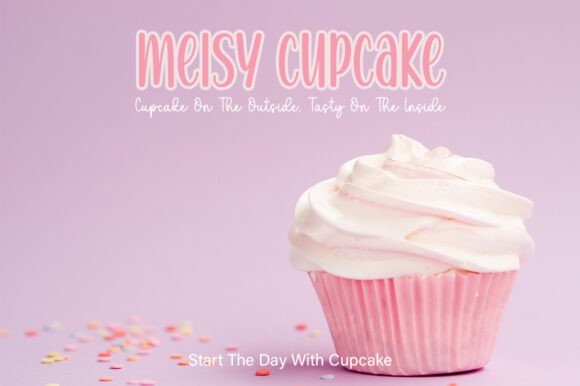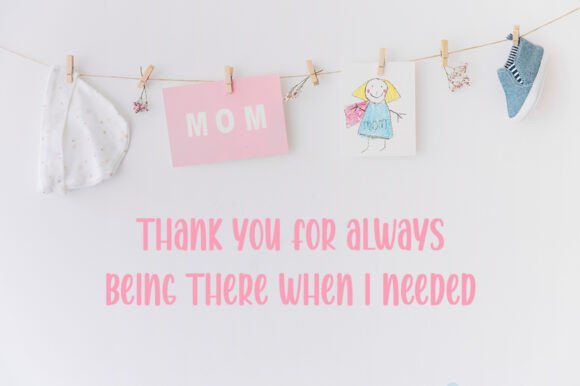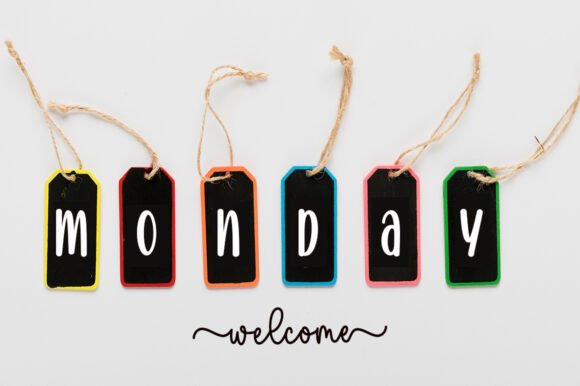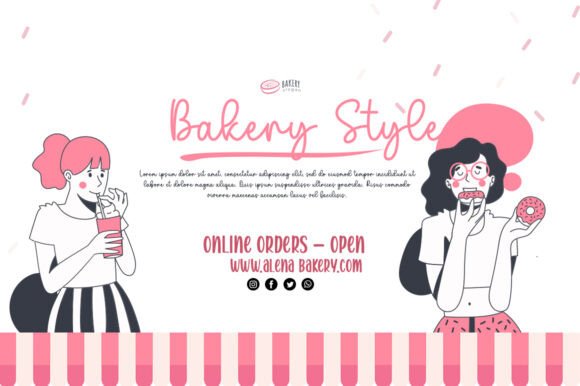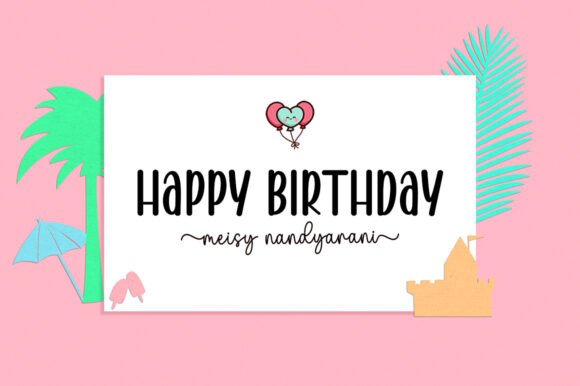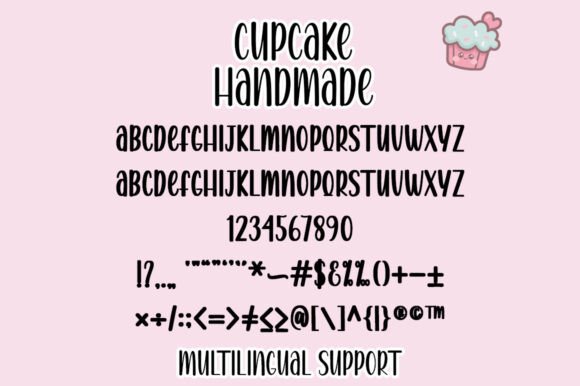
Have you ever found yourself stuck in a creative rut, searching for that perfect font to bring your vision to life? It’s a feeling many designers know all too well. One moment, you’re pouring over font collections, and the next, you’ve stumbled upon the perfect match. For us, that moment came when we discovered the Cupcake Handmade Duo Font.
This stylish duo font, consisting of a delicate sans serif and a romantic script, is the perfect addition to any design project. Whether you’re crafting a heartfelt greeting card or designing a stunning headline, Cupcake Handmade Duo Font adds a touch of elegance and whimsy that’s sure to captivate your audience. With its PUA encoding, accessing all the glyphs and ligatures is a breeze, making it a valuable asset for designers looking to elevate their work.
Cupcake Handmade Duo Font Key Features
- Font Size: Available in 4 different font sizes: Regular, Large, Extra Large, and Outline
- Unique Characteristics: This handmade duo font features a playful and whimsical design, perfect for baking-related businesses, food blogs, and social media platforms.
- Script and Font Options: Includes both a script and a font version, allowing for versatility in design and layout.
- Characters and Glyphs: Includes a wide range of characters, including uppercase and lowercase letters, numbers, and special characters.
Cupcake Handmade Duo Font Review
Overall, I’m quite impressed with the Cupcake Handmade Duo Font. It’s a beautiful, hand-drawn font that’s perfect for adding a touch of whimsy to your designs.
- ✨ Unique, hand-drawn style that’s perfect for feminine designs
- ✨ Excellent for creating a sense of nostalgia and warmth
- ✨ Includes two font styles: a regular and a script, which gives you a lot of flexibility
- ⚠️ Limited character set, which may make it difficult to use for longer blocks of text
- ⚠️ Not ideal for use in smaller font sizes, as the details can get lost
- ⚠️ May not be suitable for corporate or formal designs, as it’s quite playful and cursive
Overall, I think the Cupcake Handmade Duo Font is a great choice for designers who want to add a touch of personality to their designs. It’s perfect for blogs, social media, and other online platforms where a more whimsical feel is desired.
The Cupcake Handmade Duo Font is perfect for:
- Cupcake and bakery branding
- Food and dessert-themed designs
- Wedding and party invitations
- Handmade and craft-themed designs
For optimal results, use the Cupcake Handmade Duo Font with pastel colors and whimsical designs to create a unique and eye-catching look.